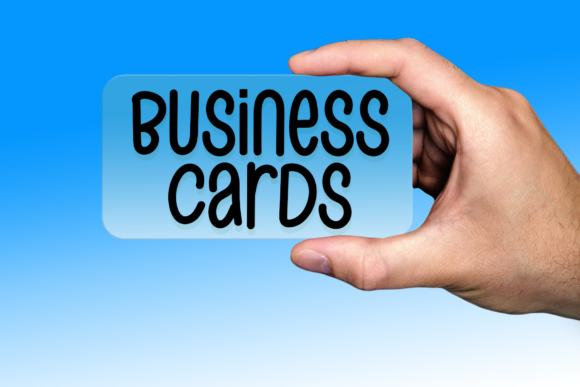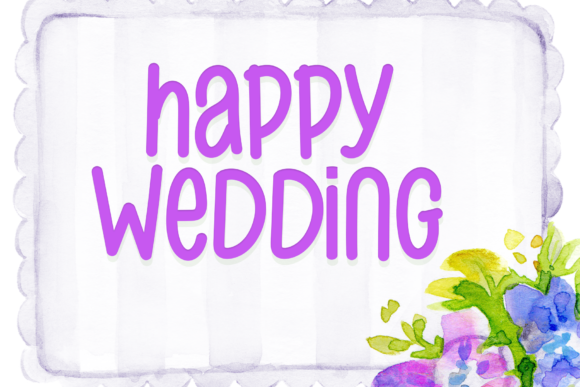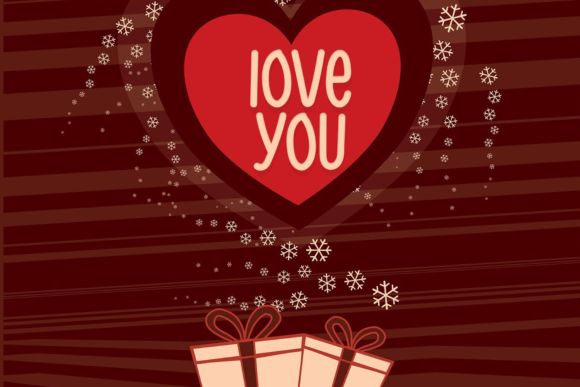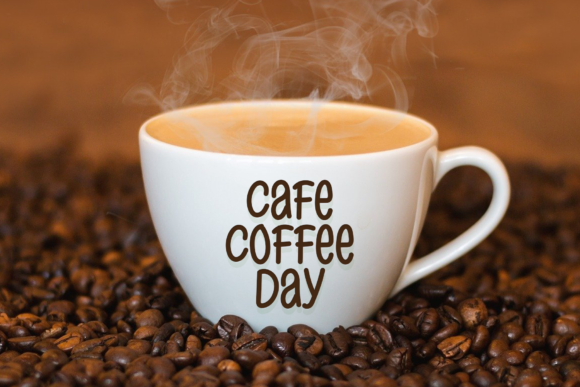
Introduction to Miss Valentina Font
You know that moment when you’re in the middle of a creative project and you need the perfect font to bring your design to life? That’s exactly what happened to me when I stumbled upon the Miss Valentina Font. Its bold, stylish aesthetic immediately caught my eye, and I knew I had to dive deeper.
As designers, we’re always on the lookout for high-quality fonts that can elevate our work and make it stand out. The Miss Valentina Font is a fantastic addition to any design resource, offering a free download that’s perfect for creative projects. With its transparent background and modern design, this font is a game-changer for anyone looking to add a touch of sophistication to their work.
Key Features of Miss Valentina Font
- High-quality design with a unique, elegant style suitable for creative projects
- Comes with a transparent background, allowing for easy customization and integration into various designs
- Supports a wide range of languages and characters, making it a versatile font for global projects
- Designed with a clean and sophisticated aesthetic, perfect for high-end branding, advertising, and editorial projects
Honest Review: Miss Valentina Font
I recently had the chance to work with the Miss Valentina Font, and I must say it’s a delightful addition to my design resource collection. This beautiful, high-quality font is perfect for any creative project that requires a touch of elegance.
- ✨ The font’s transparent background makes it easy to use with any image or background, allowing for maximum flexibility in design.
- ✨ The high-quality design ensures that the text remains crisp and clear, even at large sizes.
However, I did encounter a few limitations. The font’s style, while beautiful, may not be suitable for all types of projects. For example, it may not be the best choice for projects that require a bold or edgy look. Additionally, the font may not include as many variations or weights as some other fonts on the market.
Overall, I’m quite impressed with the Miss Valentina Font. It’s a great addition to any designer’s collection, and I would highly recommend it for any creative project that requires a touch of sophistication.
Miss Valentina Font
Miss Valentina Font is a high-quality design resource ideal for creative projects that require a touch of elegance and sophistication. This beautiful font is available for free download and can be used in a variety of applications, including digital design and print materials.
Tips for Getting the Most Out of Miss Valentina Font
Here are some tips for getting the most out of Miss Valentina Font:
- Use the font with a transparent background to create a beautiful, subtle effect.
- Pair the font with a high-quality image or graphic for added visual interest.
- Experiment with different font sizes and styles to create a unique look.